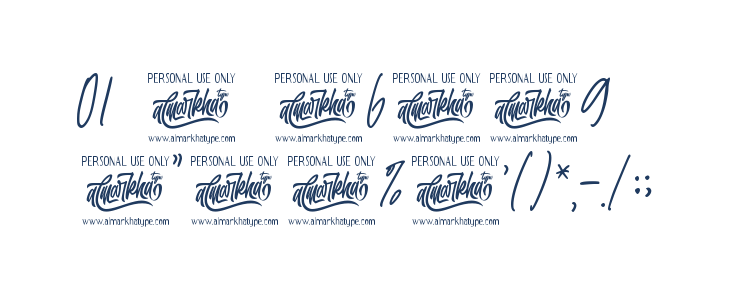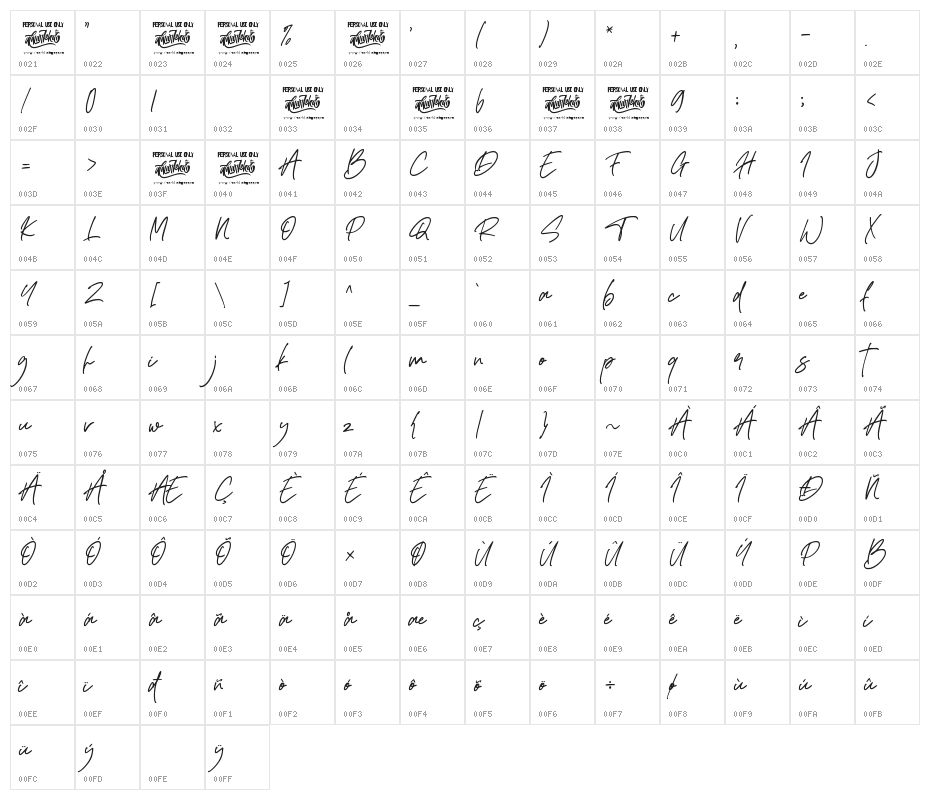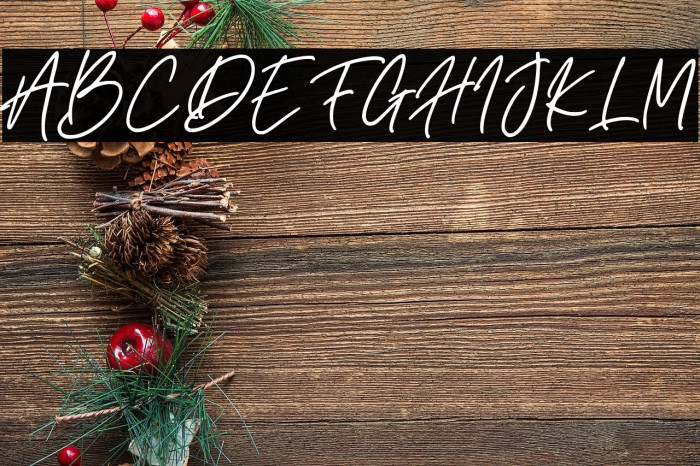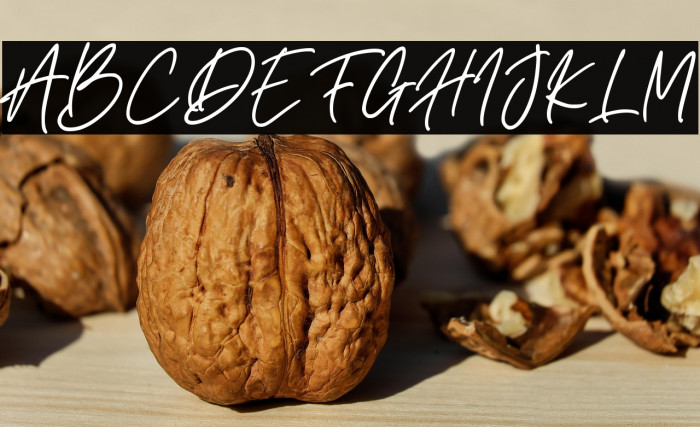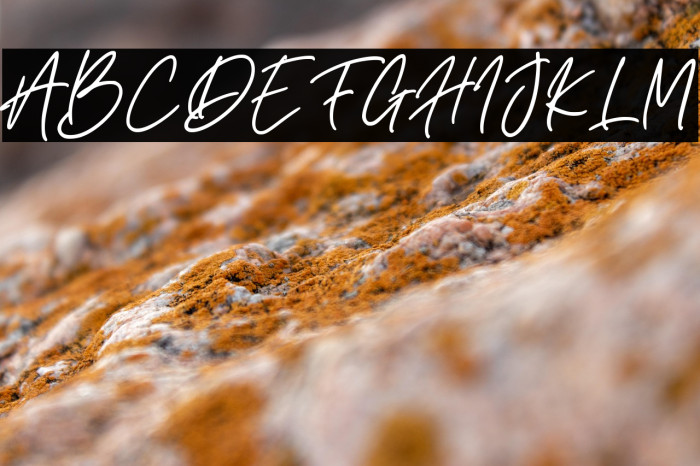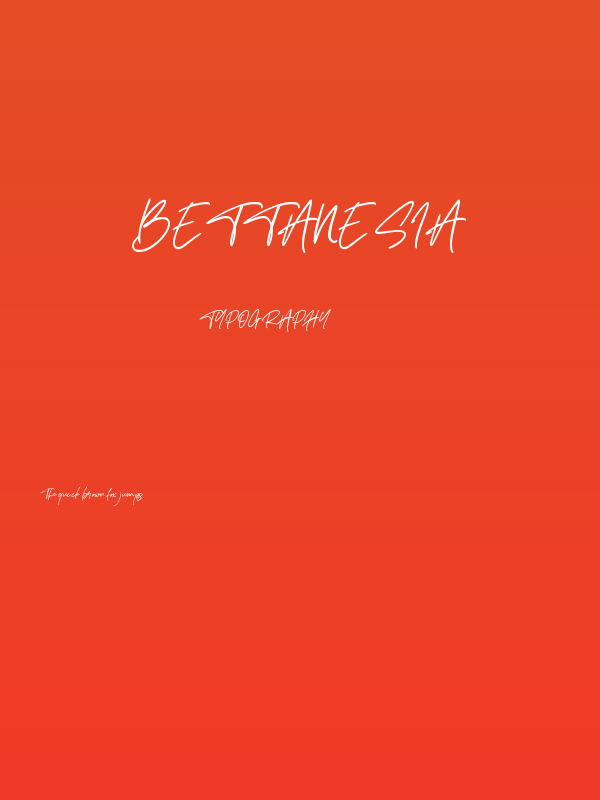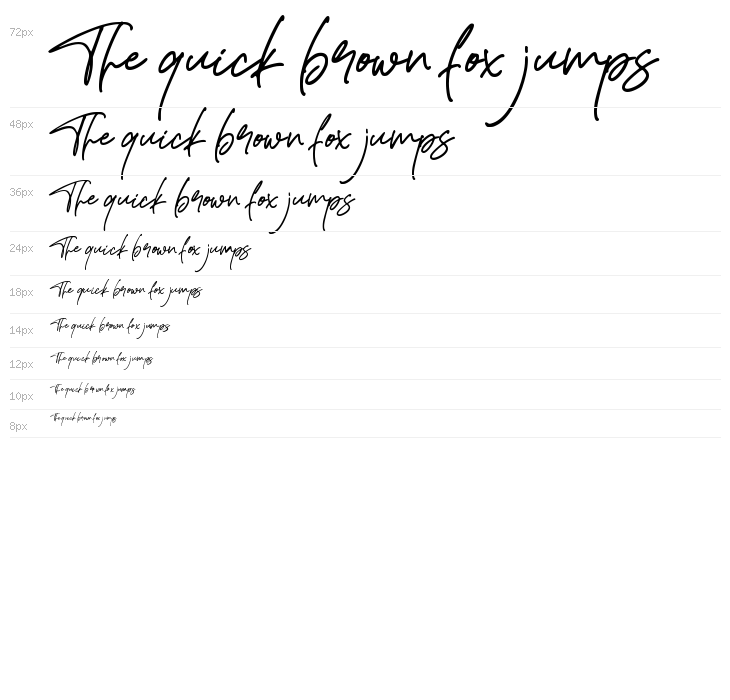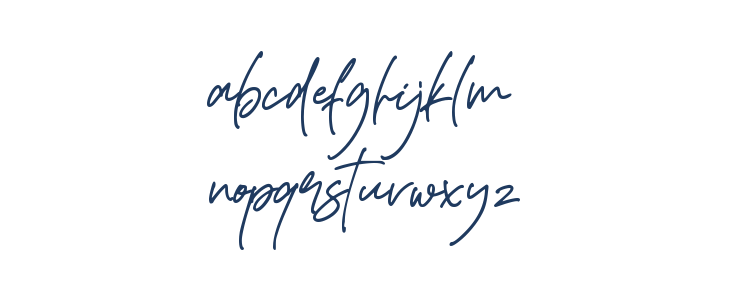
Bettanesia Font
Bettanesia Description
This font exhibits a dynamic and fluid handwritten style, characterized by its elegant and flowing script. The uppercase letters are bold and slightly slanted, giving a sense of movement and personality. The lowercase letters maintain a consistent style, with smooth curves and a natural, cursive appearance. Numbers and special characters are designed to match the overall aesthetic, ensuring a cohesive look. The font's organic and artistic nature makes it suitable for creative projects that require a personal touch.
| Proposed Projects | Ideal for wedding invitations, greeting cards, personal branding, and artistic projects that require a personal and elegant touch. |